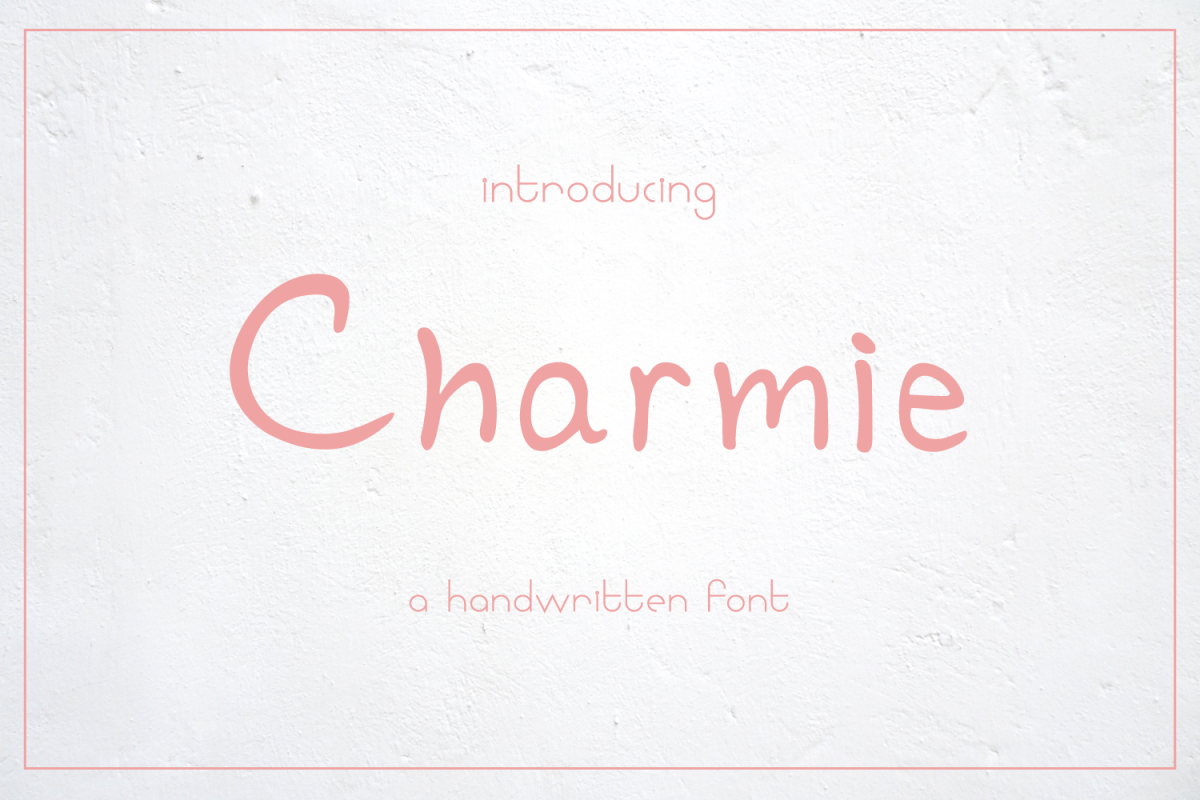
Charmie
Charmie is a handwritten font design to be simply cute and sweet. This san-serif font carries a lovely tone which is perfect for any logos, card, illustration you are working on.